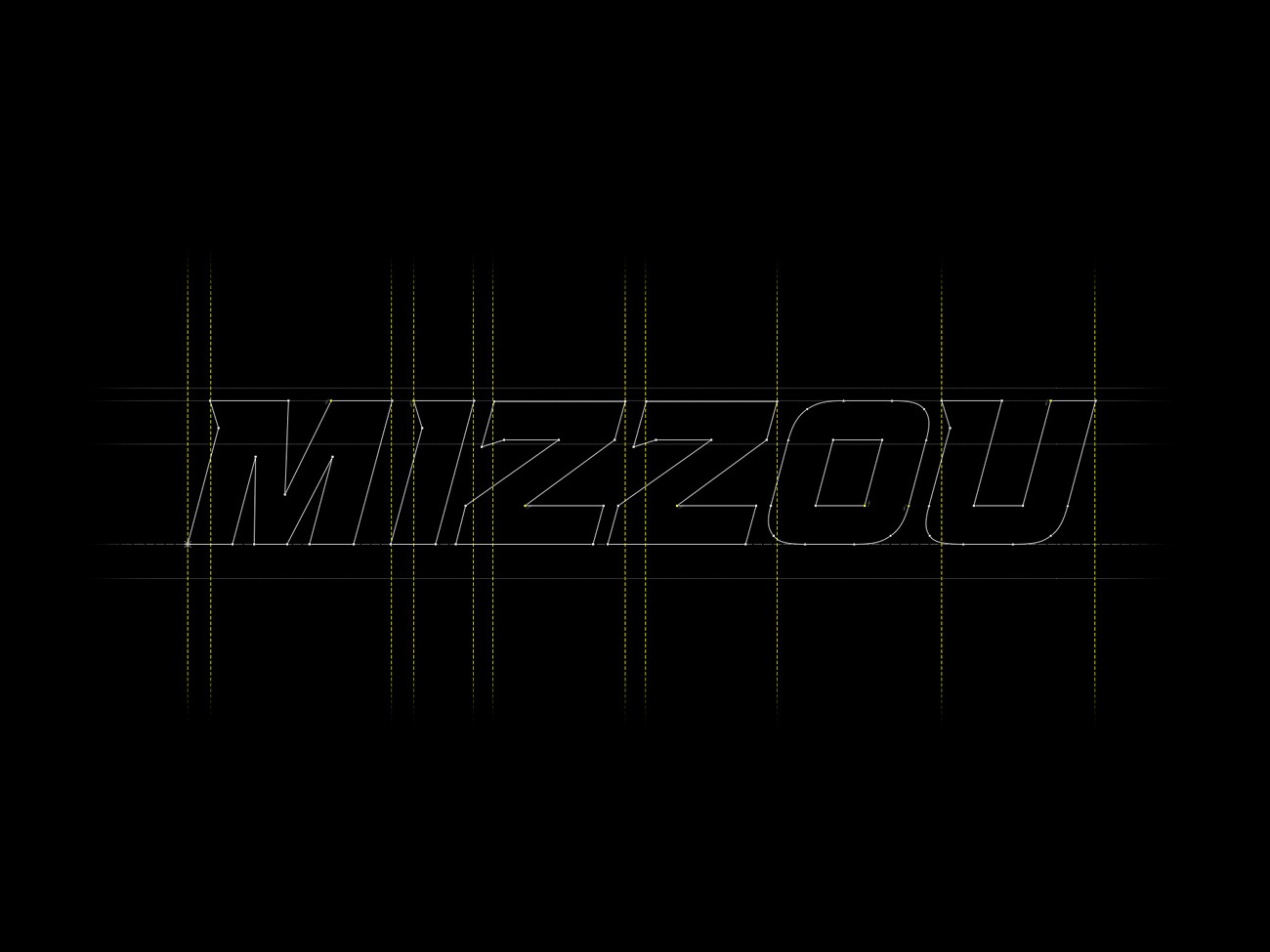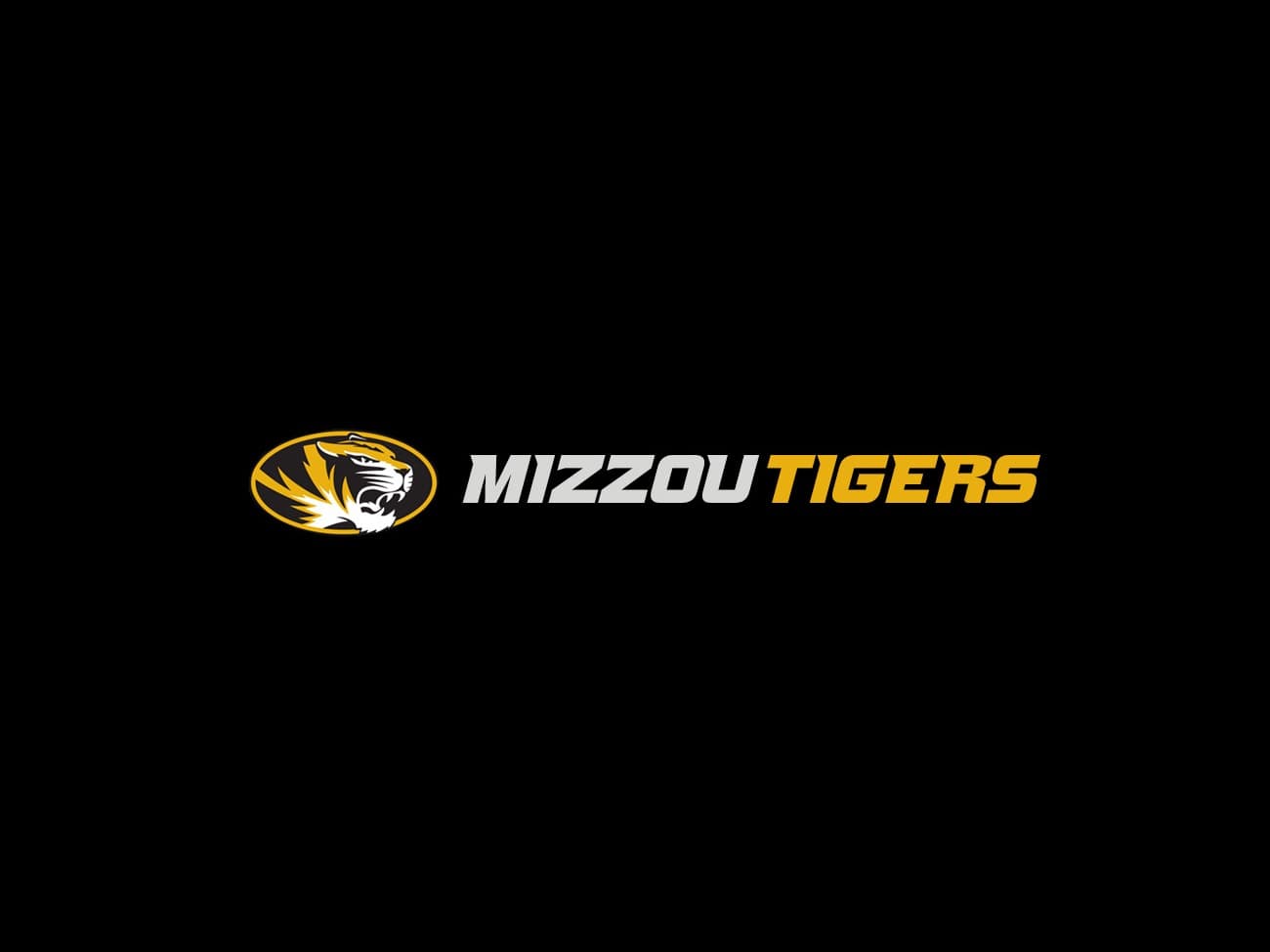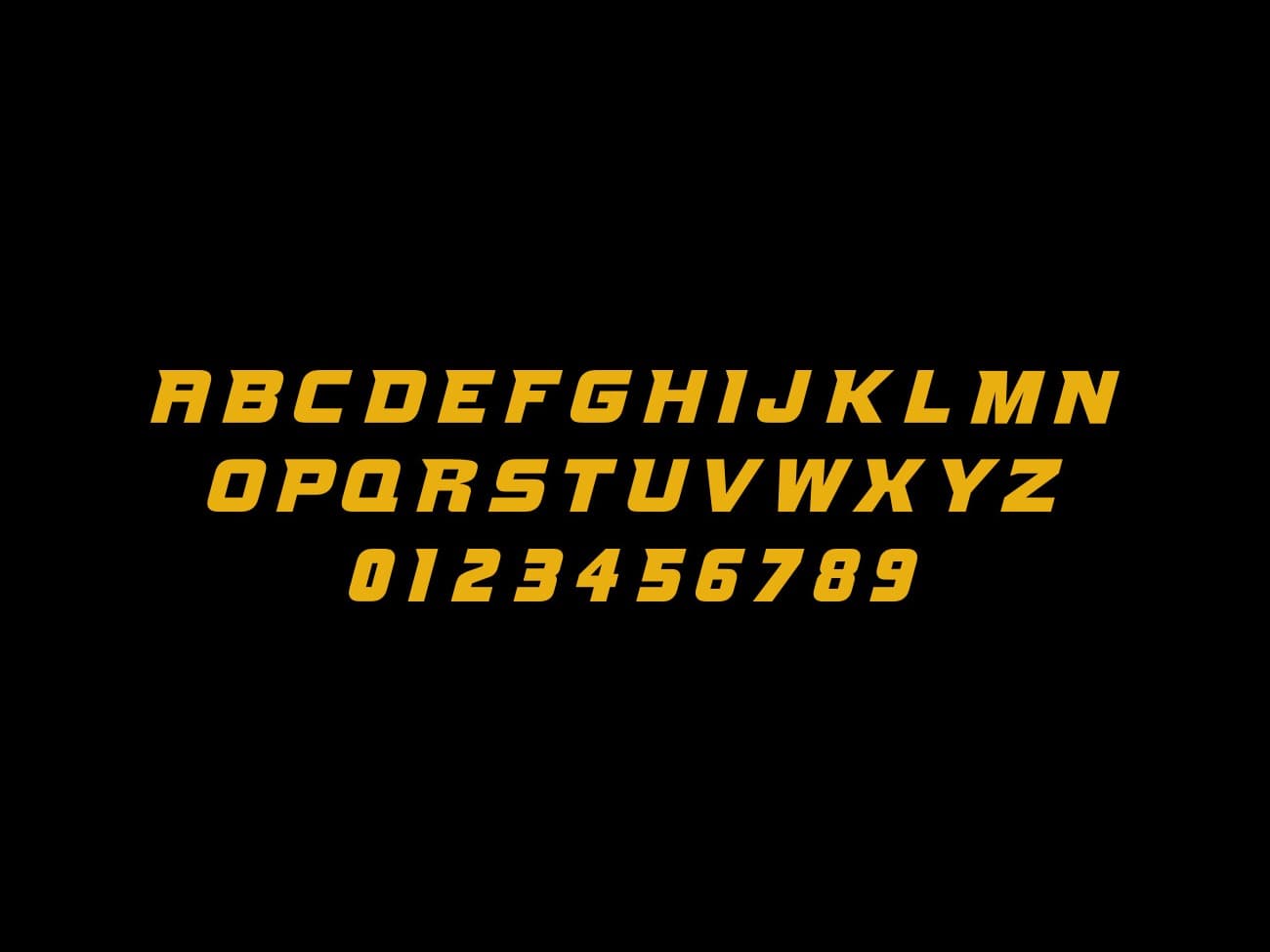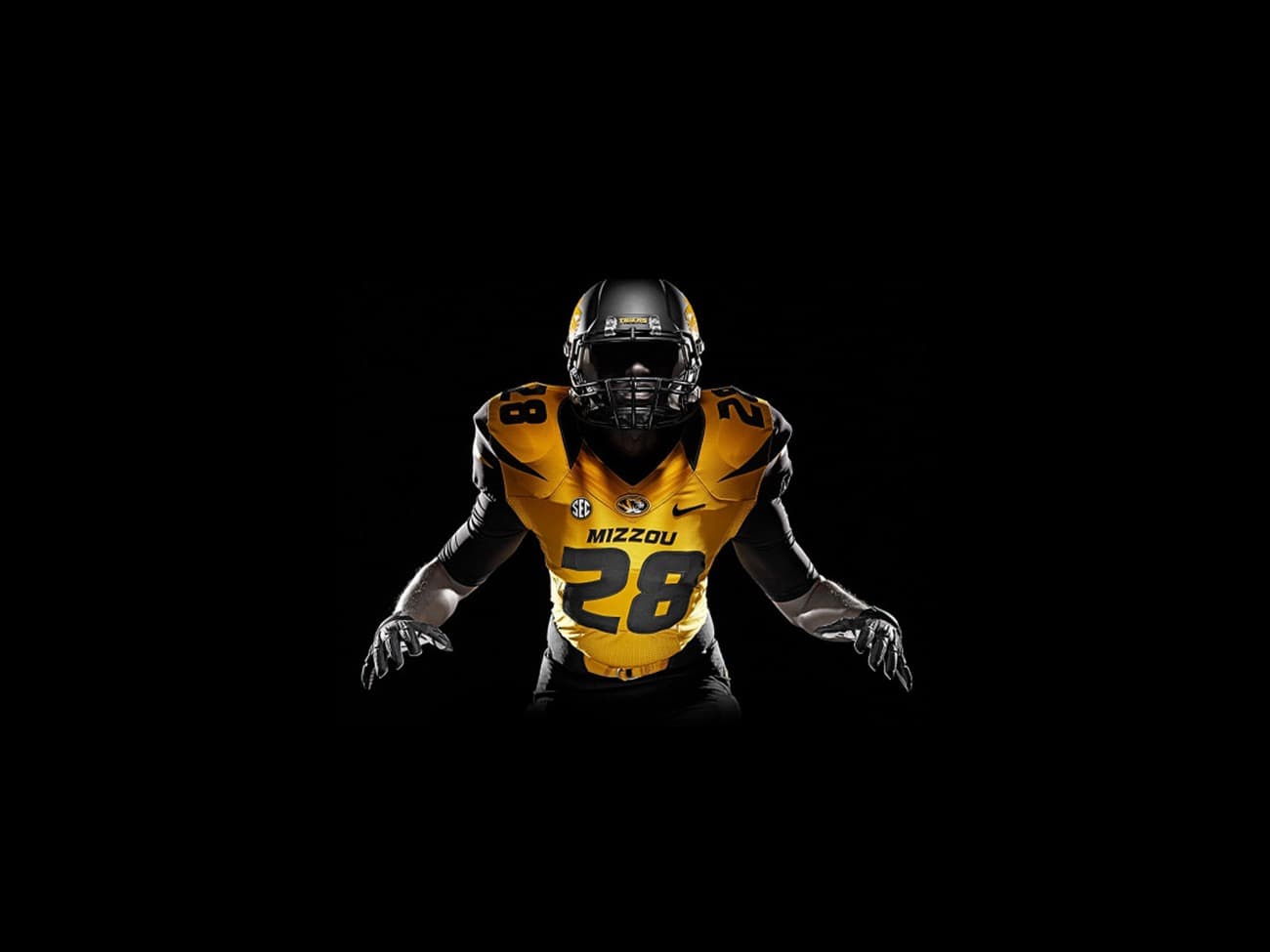
Mizzou New Era Bold Font
Working in collaboration with Nike and Bluemedia, The University of Missouri (Mizzou) desired a creative font solution as part of their new collegiate sports branding in conjunction with their inaugural year in the South Eastern Conference (SEC) of NCAA Footbal, thus, the Mizzou New Era Bold font was born.